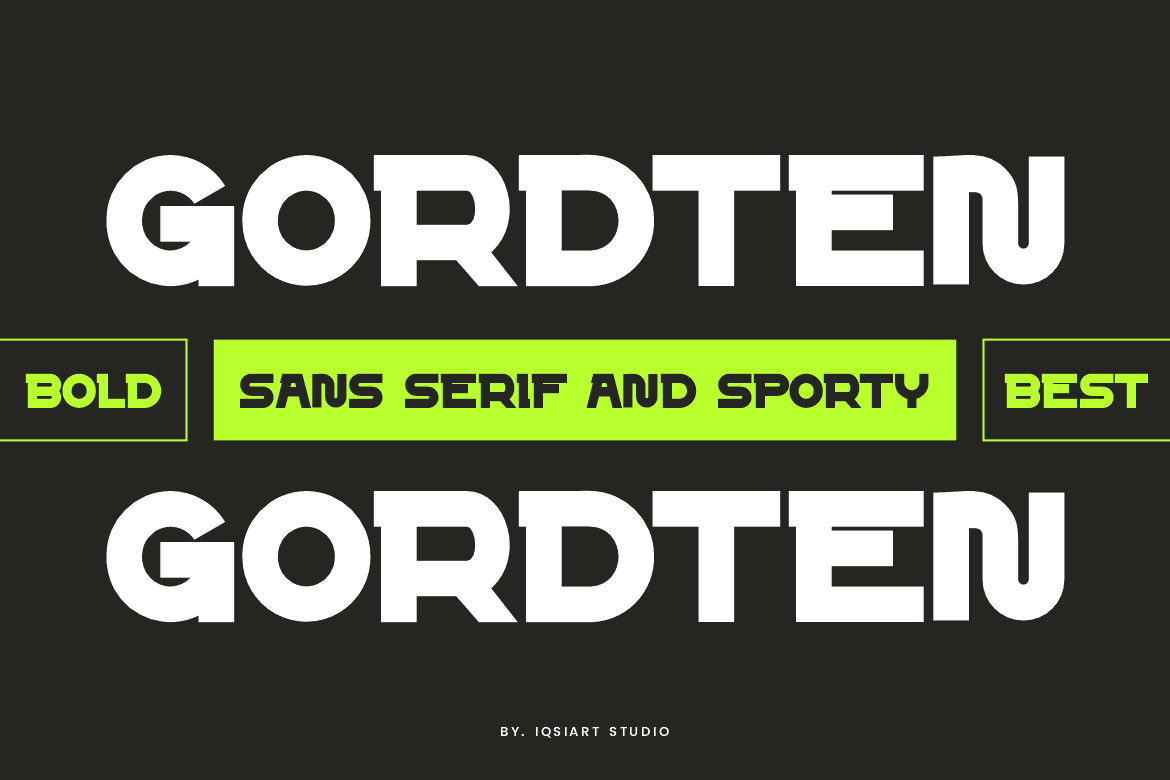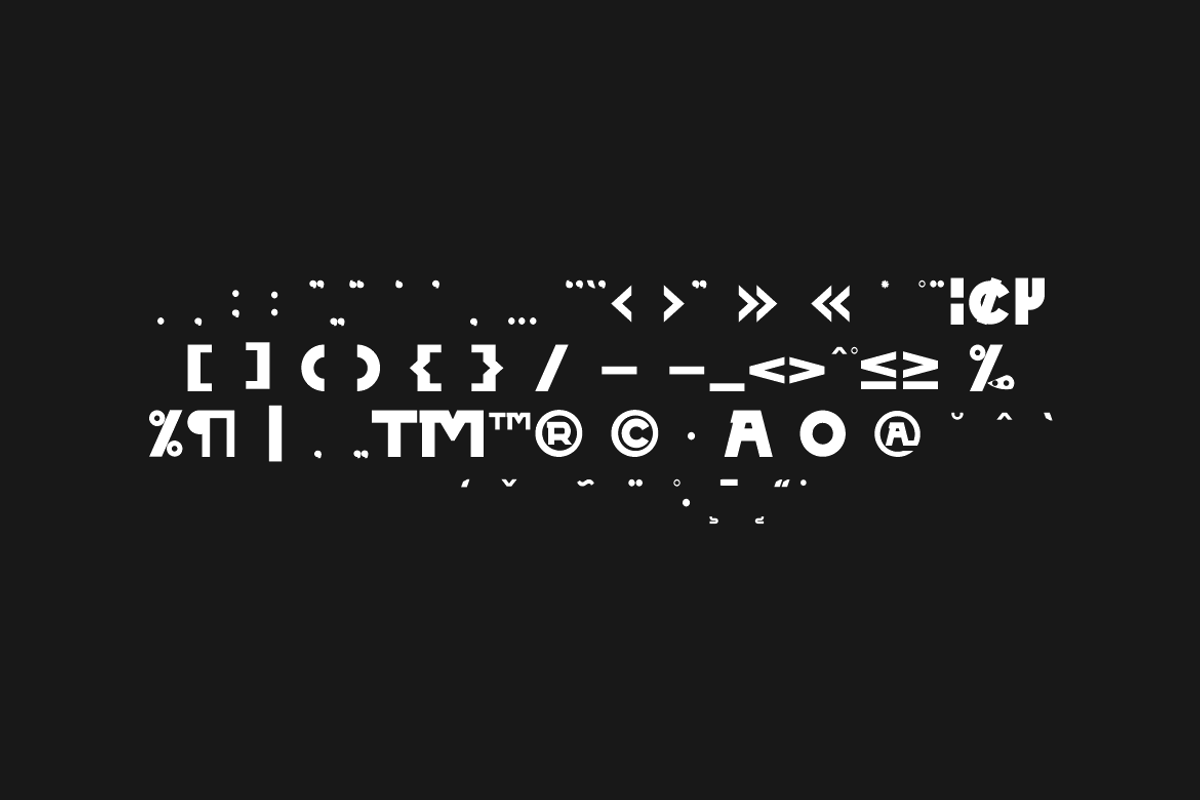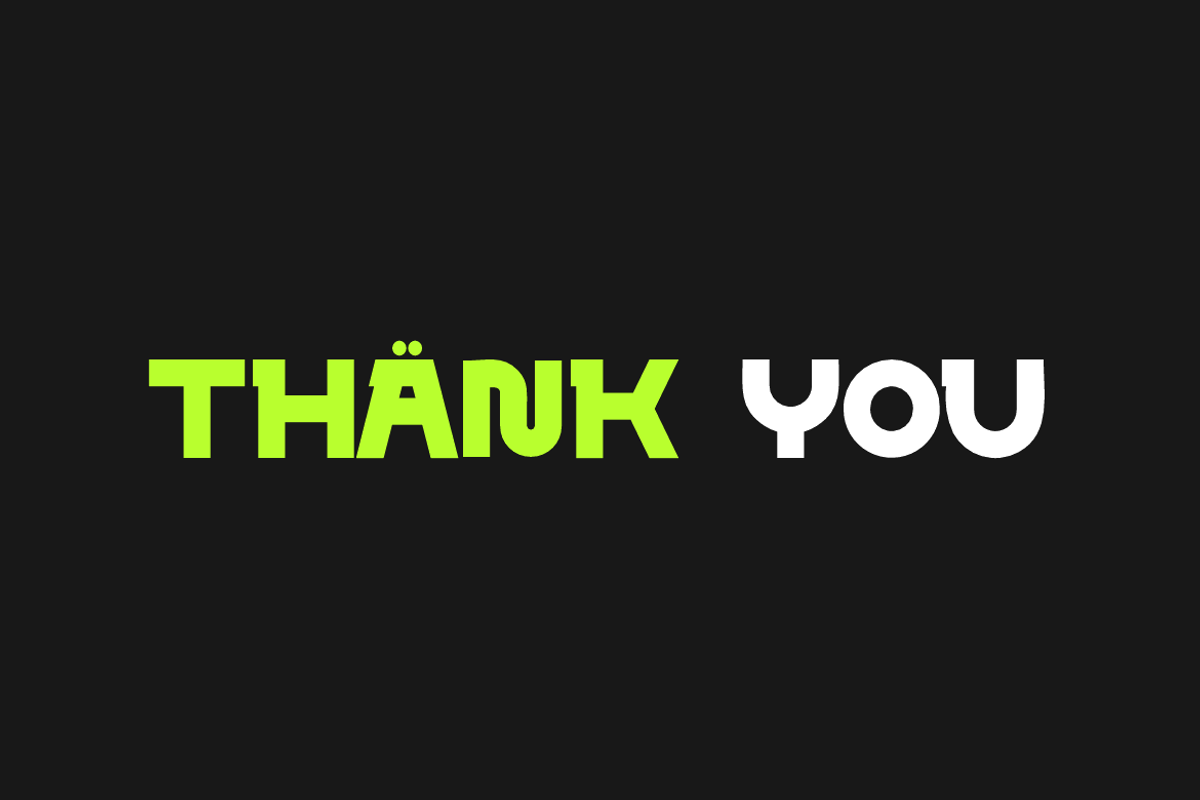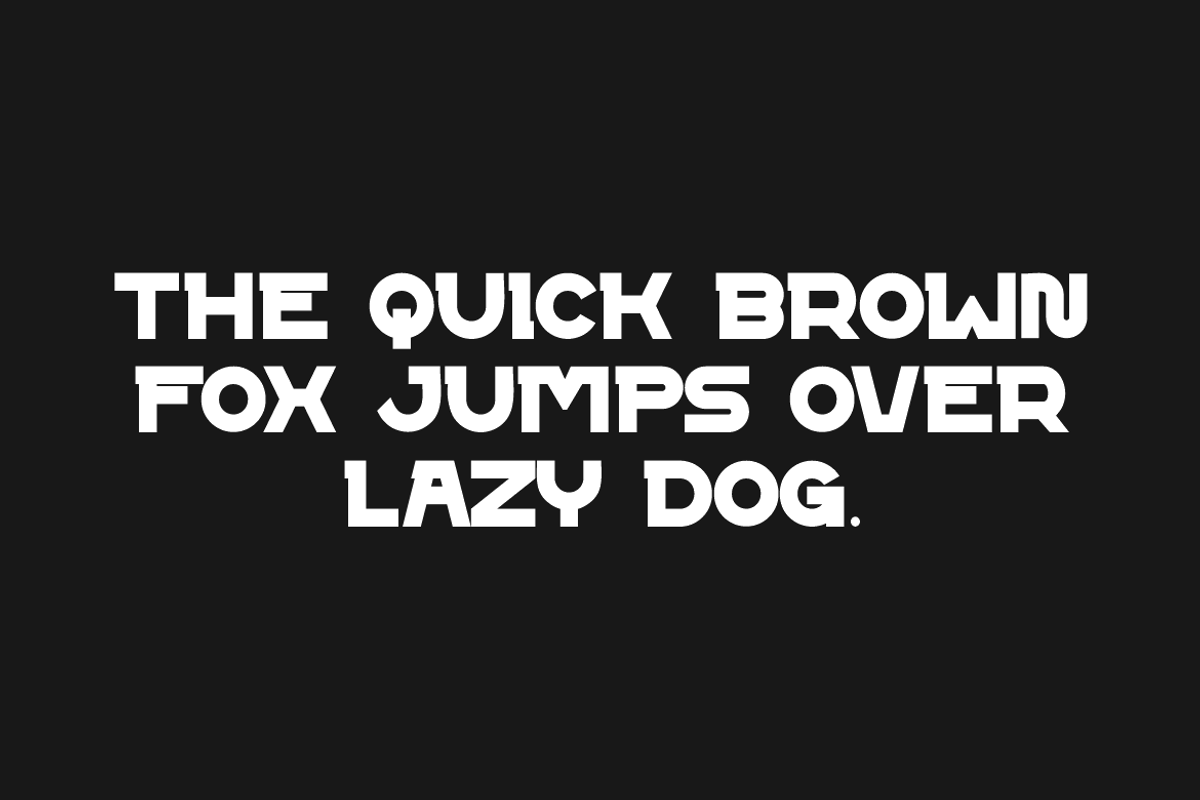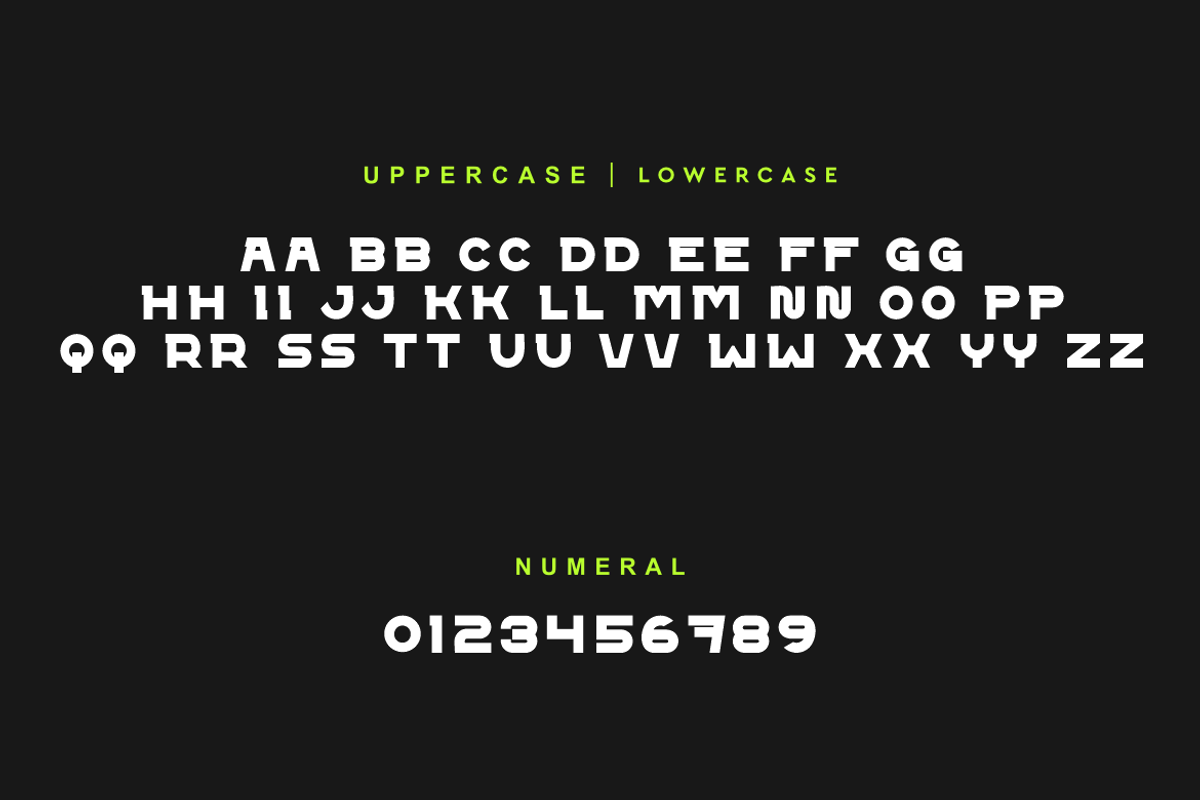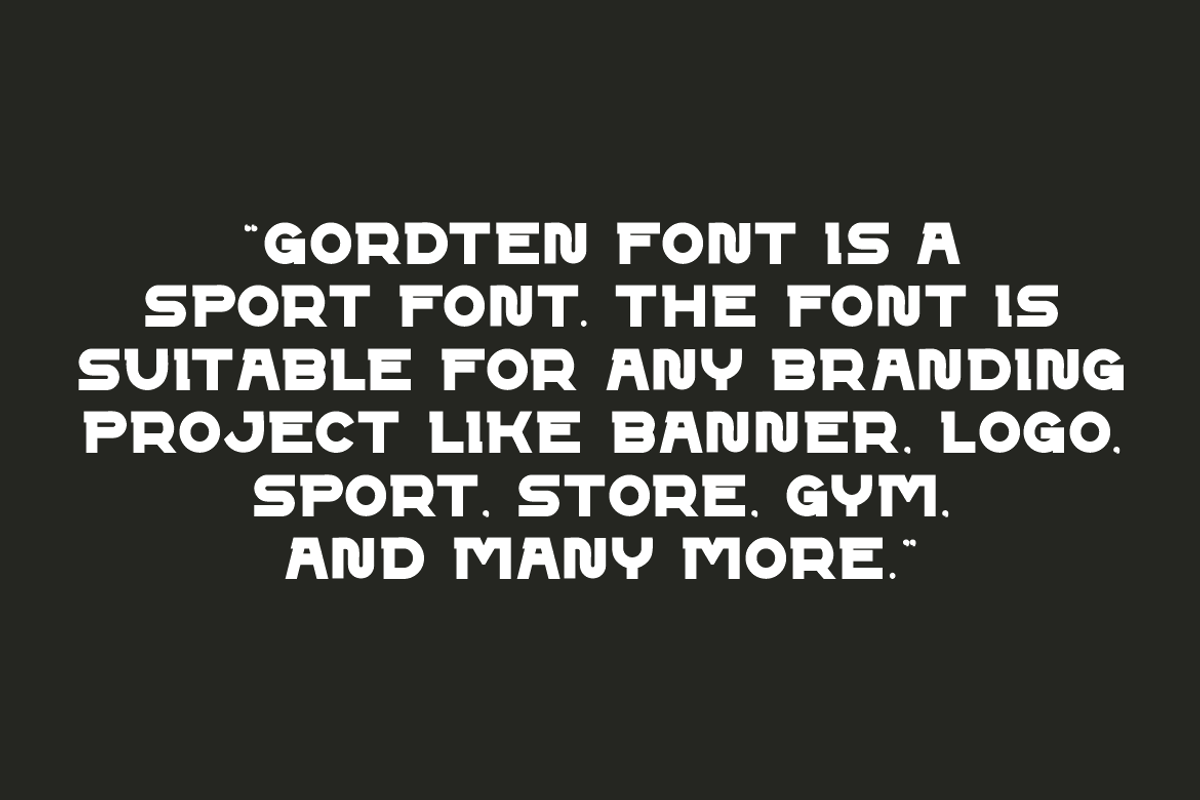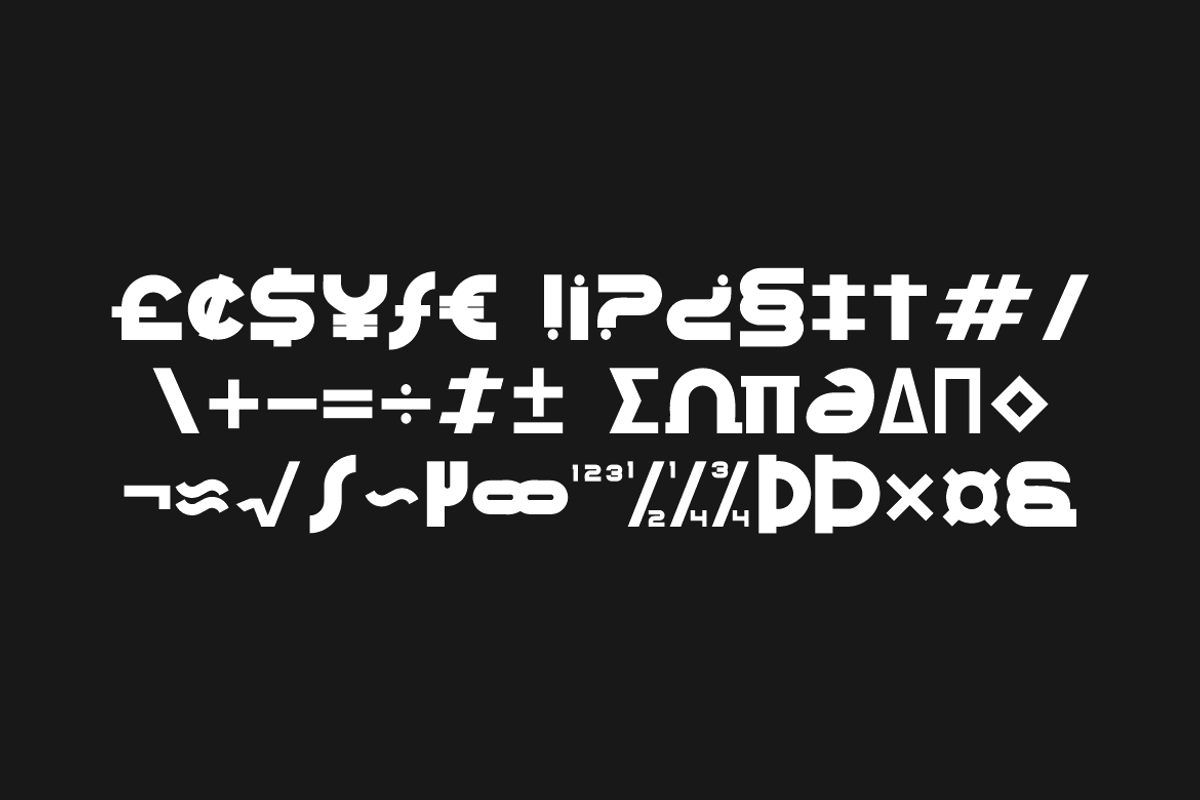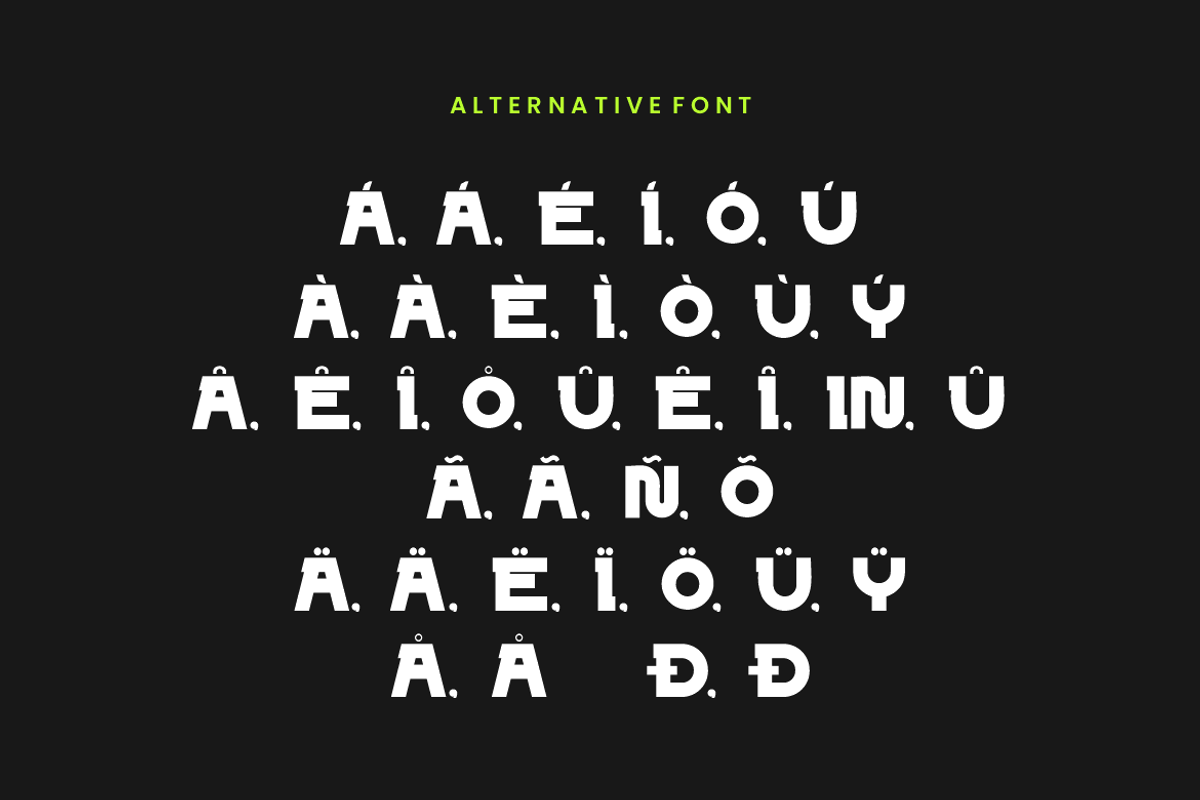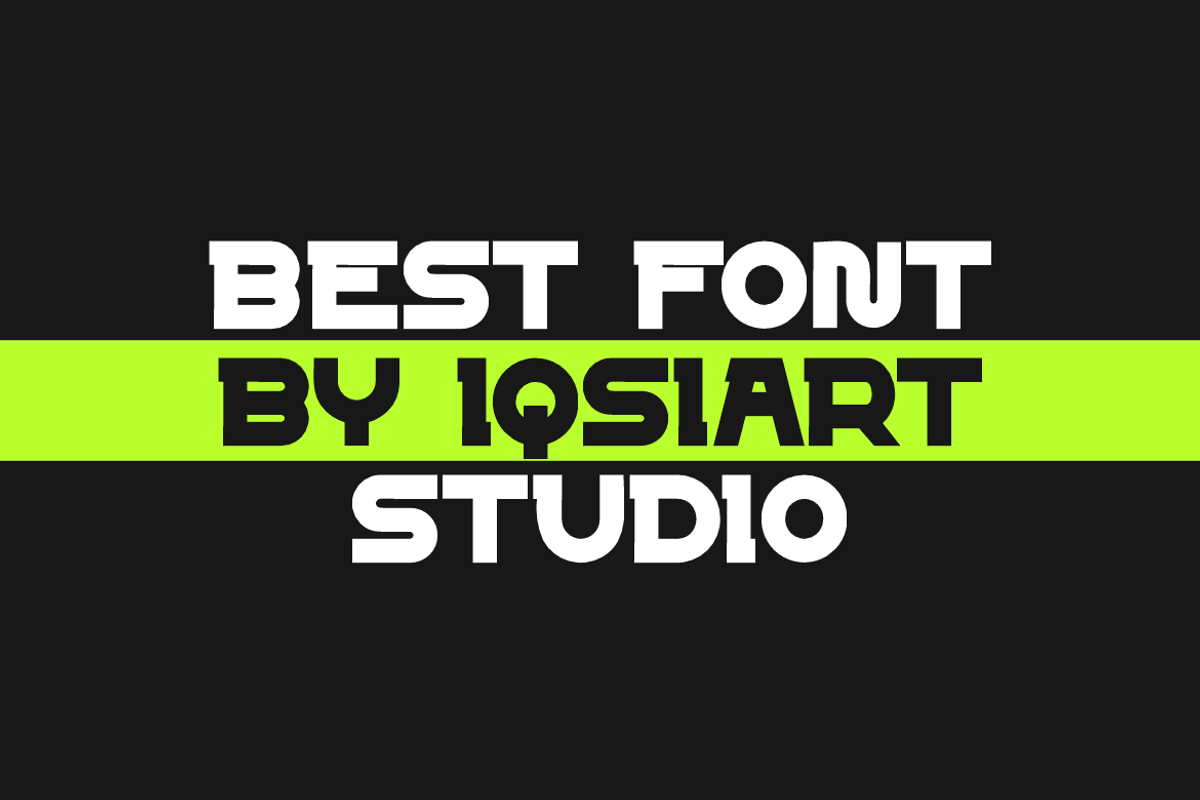
Gordten - Baseball Font
Gordten Font is a best and authentic display font. This font can be used for your various needs. We provide various themes and font styles. visit our profile to get a wide variety of themes and different font styles you need.